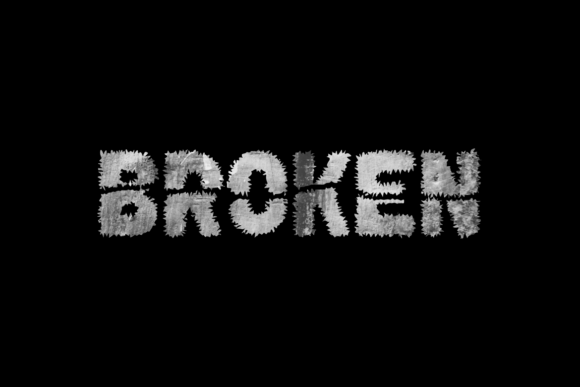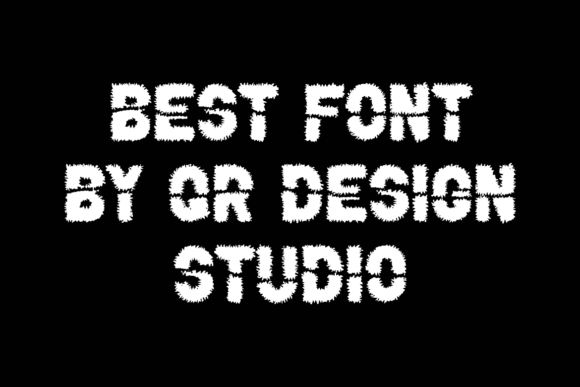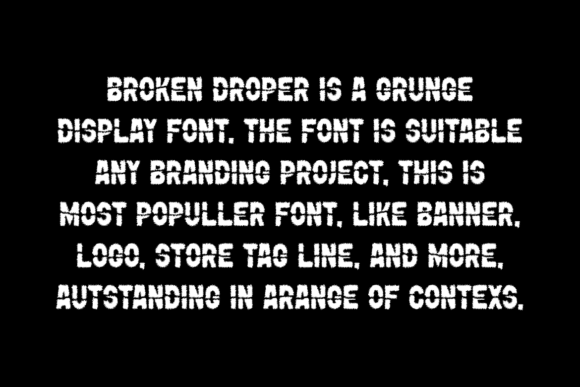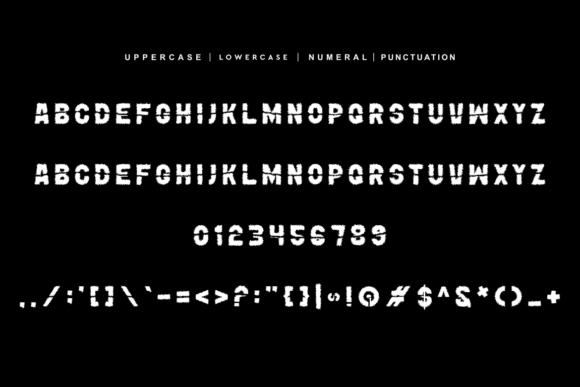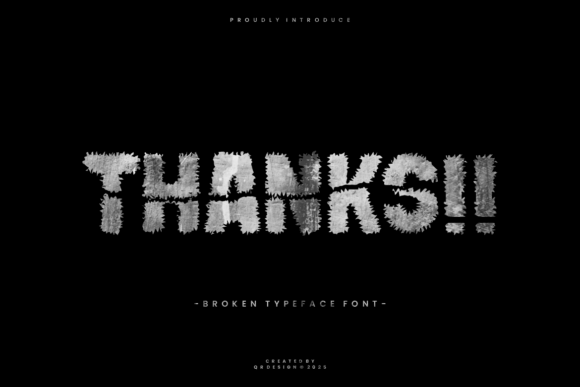
Introducing Broken Droper Font: A Bold and Assertive Decorative Font
Are you tired of using the same old fonts in your designs? Look no further than Broken Droper Font, a bold and assertive decorative font that’s sure to elevate any creation. Whether you’re a designer, crafter, or simply someone who loves to dabble in creative projects, Broken Droper Font is an incredible asset to have in your font library.
What is Broken Droper Font?
Broken Droper Font is a unique and eye-catching decorative font that’s perfect for making a statement. Its bold and assertive design makes it ideal for use in a variety of projects, from bold headings and titles to creative crafts and DIY projects. The font’s distinctive look is sure to grab attention and add a touch of personality to any design.
Key Features of Broken Droper Font
- Bold and Assertive Design: Broken Droper Font is designed to make a statement. Its bold and assertive design makes it perfect for use in headings, titles, and other applications where you want to grab attention.
- Versatile: Despite its bold design, Broken Droper Font is surprisingly versatile. It can be used in a wide range of projects, from creative crafts and DIY projects to digital designs and print materials.
- Easy to Read: Despite its bold design, Broken Droper Font is easy to read, even in smaller sizes. This makes it perfect for use in a variety of applications, from body text to headings and titles.
- Unique and Eye-Catching: Broken Droper Font has a distinctive look that’s sure to grab attention. Its unique design makes it perfect for use in projects where you want to stand out from the crowd.
Uses for Broken Droper Font
Broken Droper Font is a versatile font that can be used in a wide range of projects. Here are a few ideas to get you started:
- Graphic Design: Use Broken Droper Font to add a bold and assertive touch to your graphic designs. It’s perfect for use in logos, headings, and titles.
- Crafts and DIY Projects: Broken Droper Font is perfect for use in crafts and DIY projects, such as scrapbooking, card making, and other paper crafts.
- Digital Designs: Use Broken Droper Font to add a bold and assertive touch to your digital designs, such as social media graphics, blog posts, and other online content.
- Print Materials: Broken Droper Font is perfect for use in print materials, such as brochures, flyers, and other marketing materials.
Tips for Using Broken Droper Font
Here are a few tips for using Broken Droper Font in your designs:
- Use it Sparingly: While Broken Droper Font is bold and assertive, it can be overwhelming if used too much. Use it sparingly to add emphasis and create visual interest.
- Pair it with Other Fonts: Broken Droper Font pairs well with a variety of other fonts. Try pairing it with a clean and simple font to create visual interest.
- Experiment with Colors: Broken Droper Font looks great in a variety of colors. Experiment with different colors to find the one that works best for your design.
Broken Droper Font is a bold and assertive decorative font that’s sure to elevate any creation. Its unique and eye-catching design makes it perfect for use in a wide range of projects, from graphic design and crafts to digital designs and print materials. With its versatility, ease of use, and bold design, Broken Droper Font is an incredible asset to have in your font library.